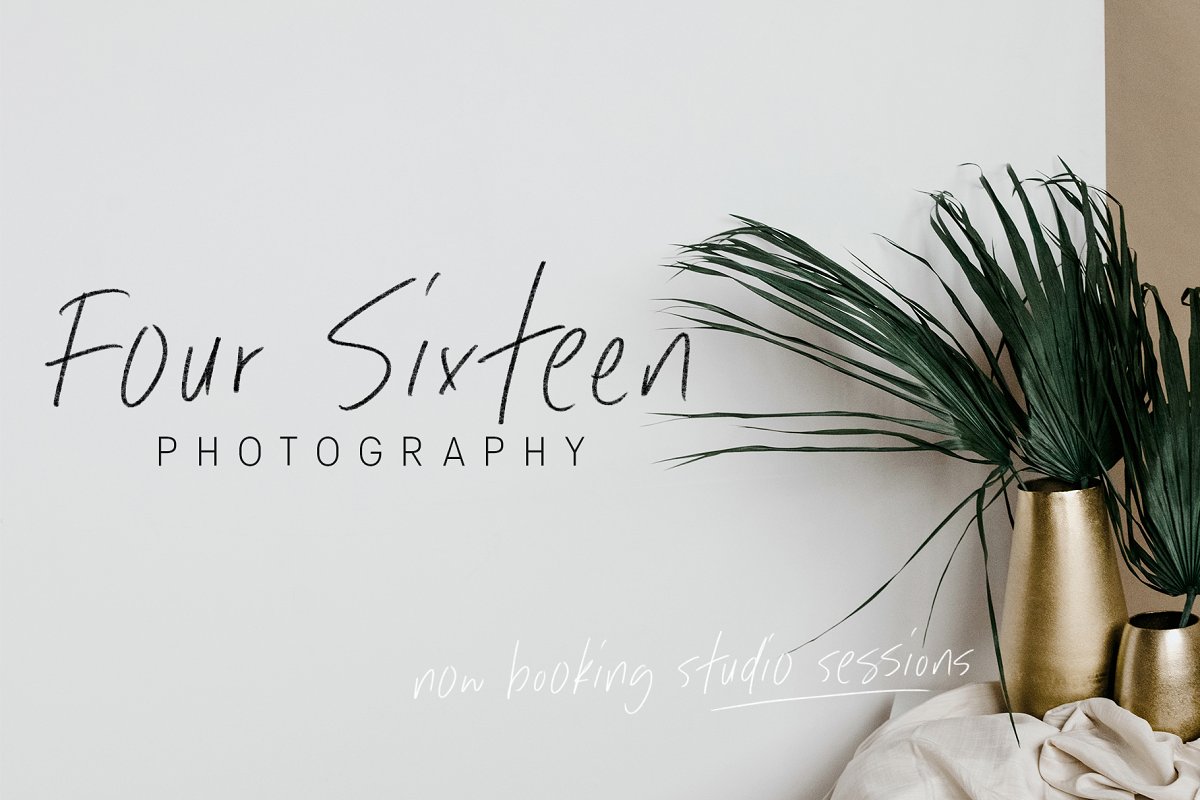
About the Oliver Label A Pencil Textured SVG Font
Oliver Label solves a problem many creatives face – the endless search for a realistic pencil-textured font to add handwritten notes to images, quotes, blog posts, and more without having to do it themselves, With this new SVG font (and Photoshop or Illustrator CC 2017+), you can easily add handwritten notes to your images in minutes!BIGGEST BENEFITS:Crisp, realistic pencil texture so your words look totally handwritten26 hand drawn elements so your quotes look beautiful and customTextured vector version of the font so you can create logos and larger-scale workAlternate versions of the SVG and vector fonts, so you can swap out repeating letters or numbersNo more wasted time trying to add your own notes and handwritten feel to your work (or worrying about your handwriting!)INFO:Oliver Label SVG: A realistic pencil-textured font
Use this version to create lettering with an authentic pencil texture! Requires Photoshop CC 2017 or Illustrator CC 2018 (or newer) to use, Oliver Label Regular: A textured vector version of the SVG font that works with any Desktop application (Word, Photoshop, Canva, etc
), Use this version for logos and large-scale work – the SVG can only get so big before it pixelates!Oliver Label Alternates: Both the vector and SVG fonts include an ‘Alt’ version, where you’ll get a whole new set of letters and numbers, This way, you can swap out regular letters for the alternates when you have two of the same letters close to one another (i
e, oo or bb) to look as realistic as possible, Oliver Label Drawn: You’ll also get SVG and vector versions of a font with 26 different hand-drawn shapes to add to quotes and graphics, Non-English support for the international designer: Provided in the Regular version only